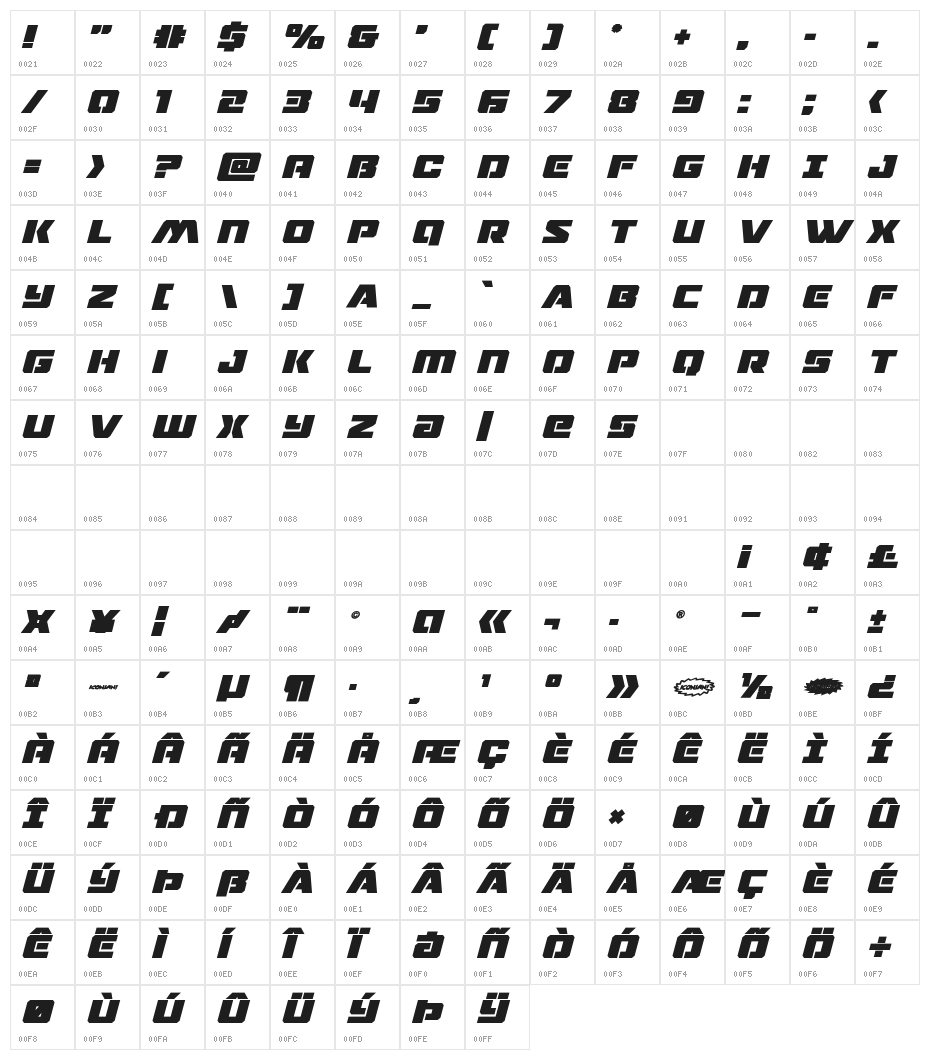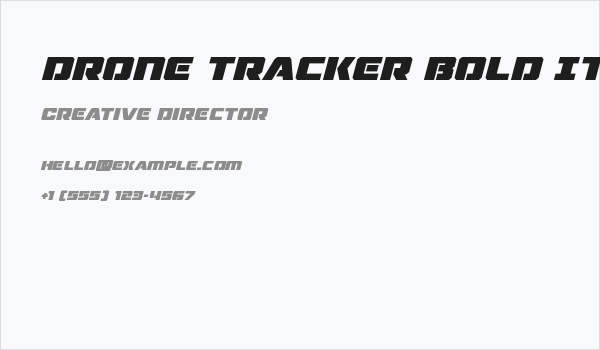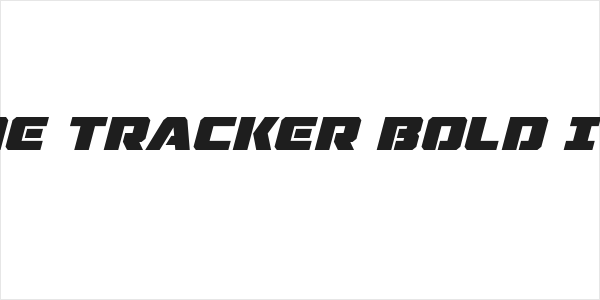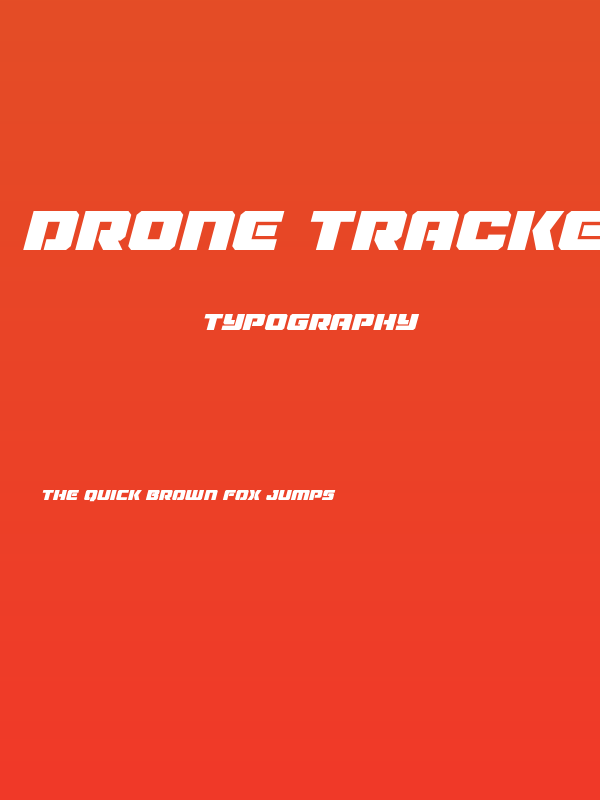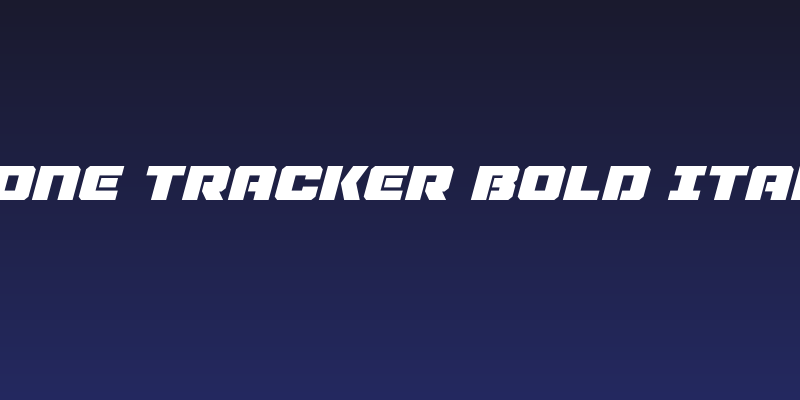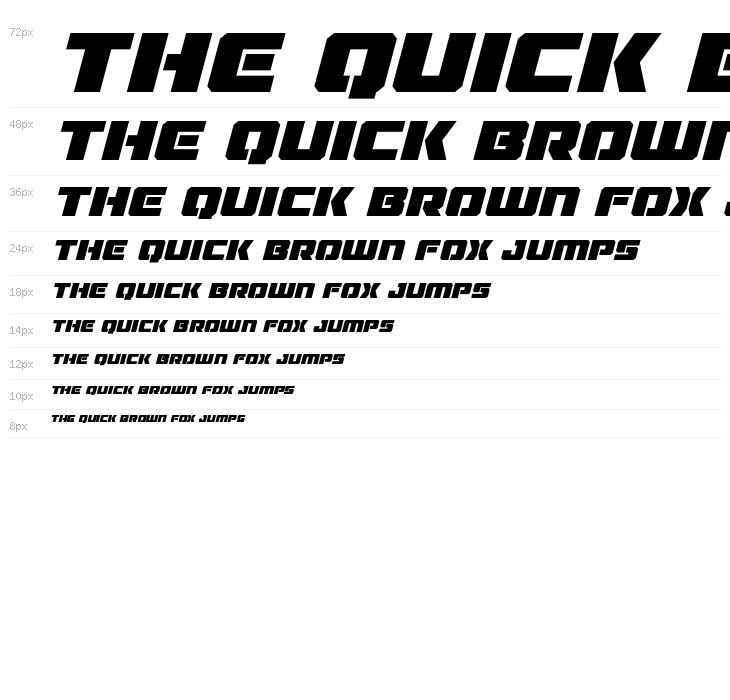
Drone Tracker Bold Italic Font
Drone Tracker Bold Italic Description
This font features a bold and italicized style with a futuristic and dynamic appearance. The characters are angular and geometric, giving a sense of movement and speed. The uppercase and lowercase letters maintain a consistent design, with sharp edges and a slightly condensed form. Numbers and special characters follow the same stylistic cues, ensuring uniformity across all glyphs. The font's bold weight and italic slant make it stand out, ideal for attention-grabbing designs.
| Proposed Projects | Ideal for technology branding, sports team logos, video game titles, and sci-fi themed posters. |